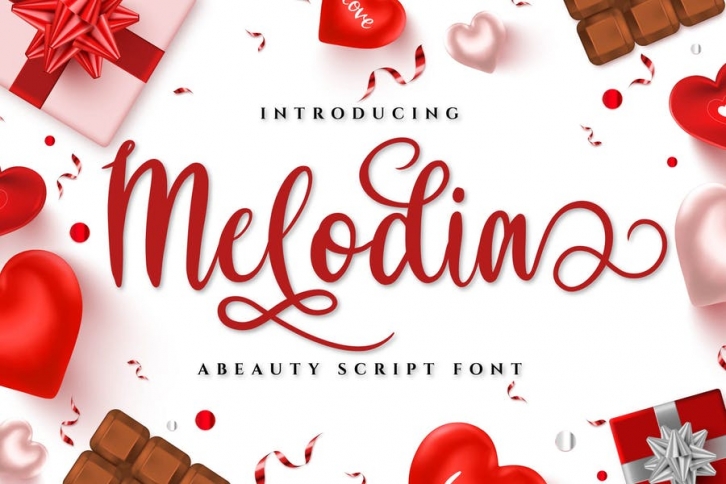
Melodia is an incredibly distinct, delicate and timeless handwritten font. Not too thin and not too thick, balanced and varied, this font was designed to enhance the beauty of your projects.